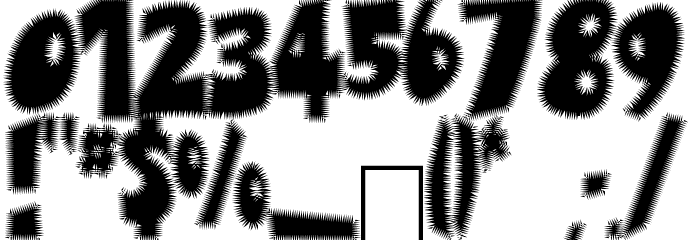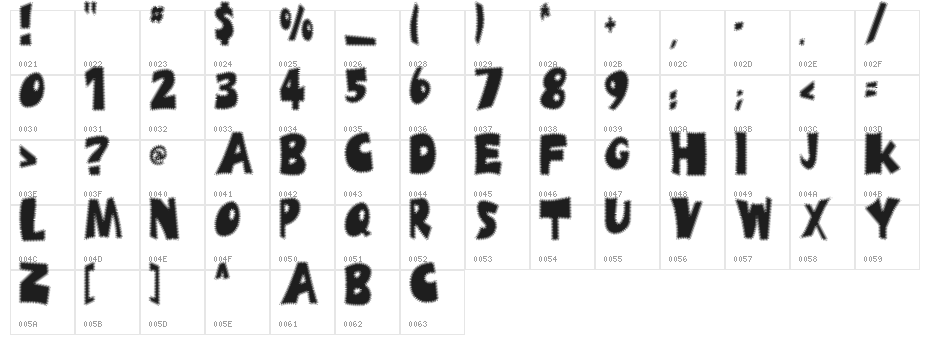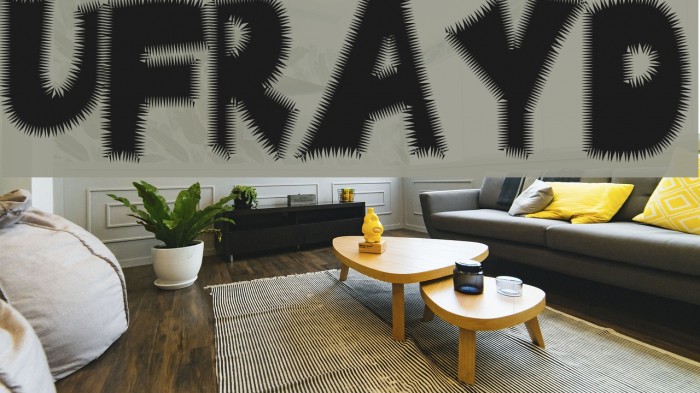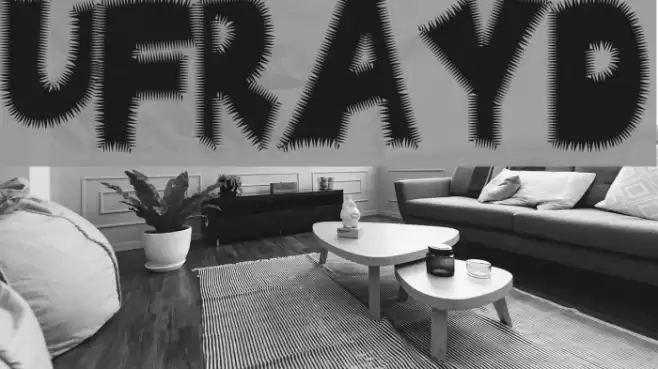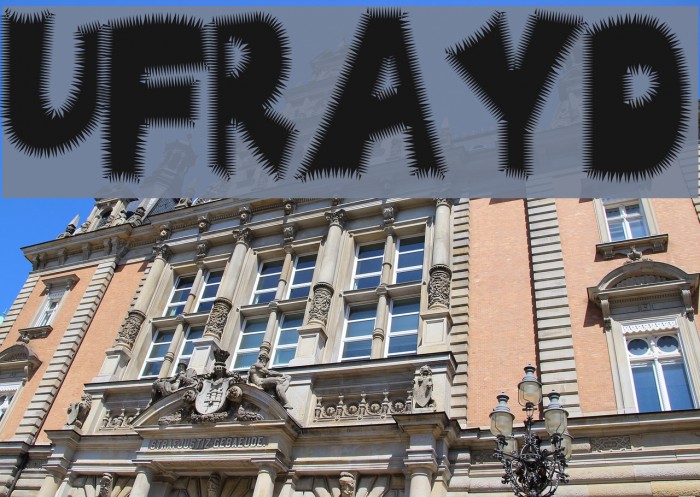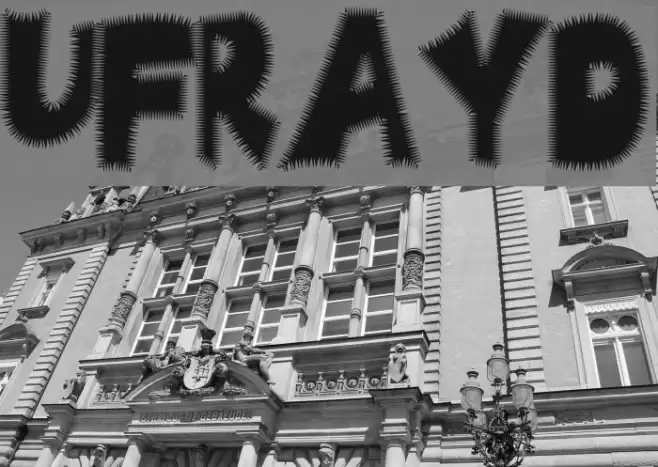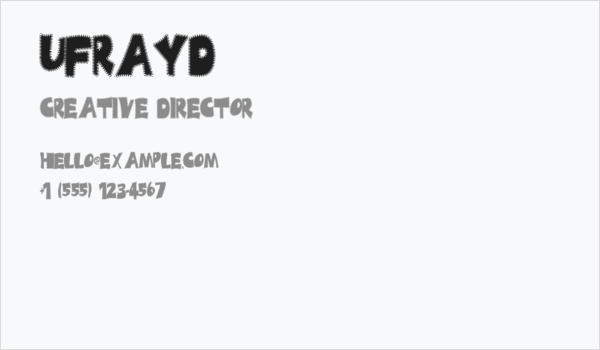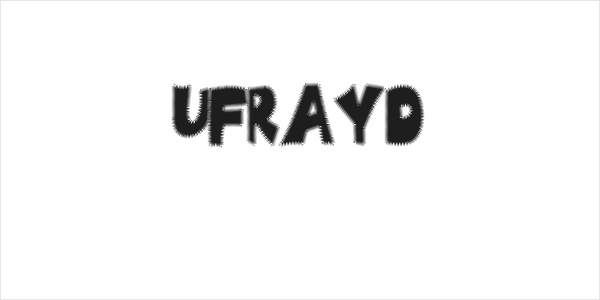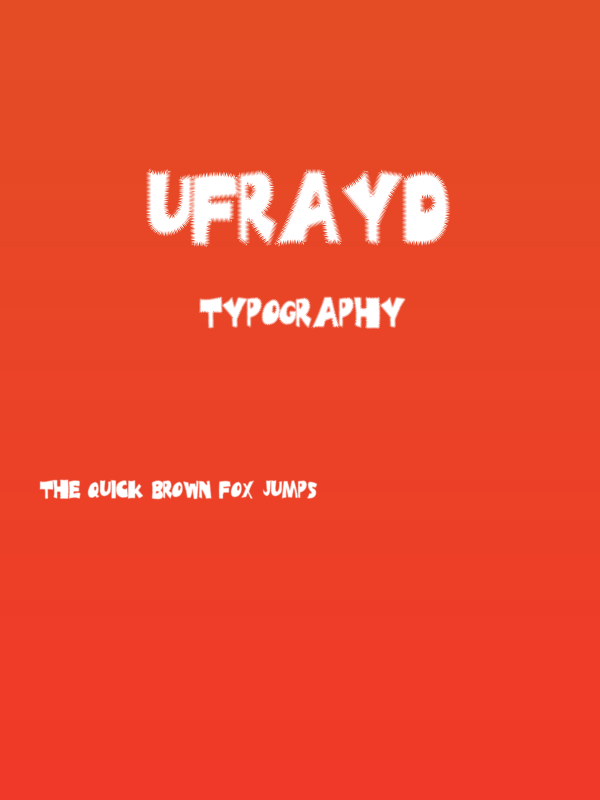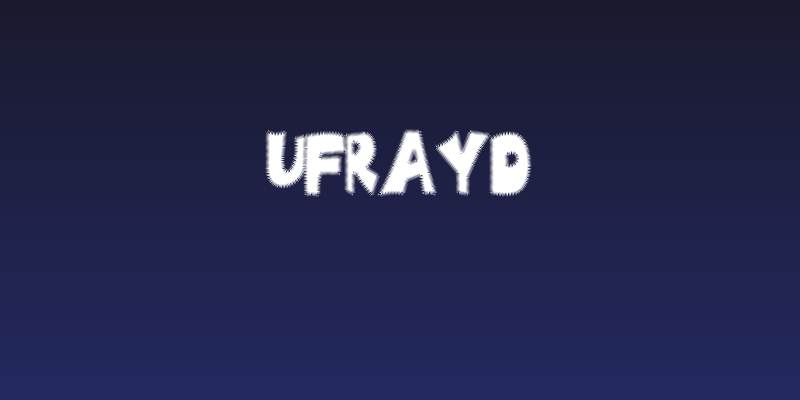
Ufrayd Font
Ufrayd Description
This font features a bold and striking design with a unique spiky texture around each character, giving it a dynamic and edgy appearance. The uppercase and lowercase letters maintain a consistent style, with thick strokes and a playful, almost chaotic outline that resembles a burst of energy. The numbers and special characters follow the same design principles, ensuring a cohesive look across all glyphs. This font's distinctive style makes it stand out, perfect for projects that require a bold statement or an unconventional aesthetic.
| Use Case | Headlines, Posters, Logos |
| Proposed Projects | Ideal for Halloween-themed designs, edgy posters, album covers, or any project needing a bold, unconventional look. |